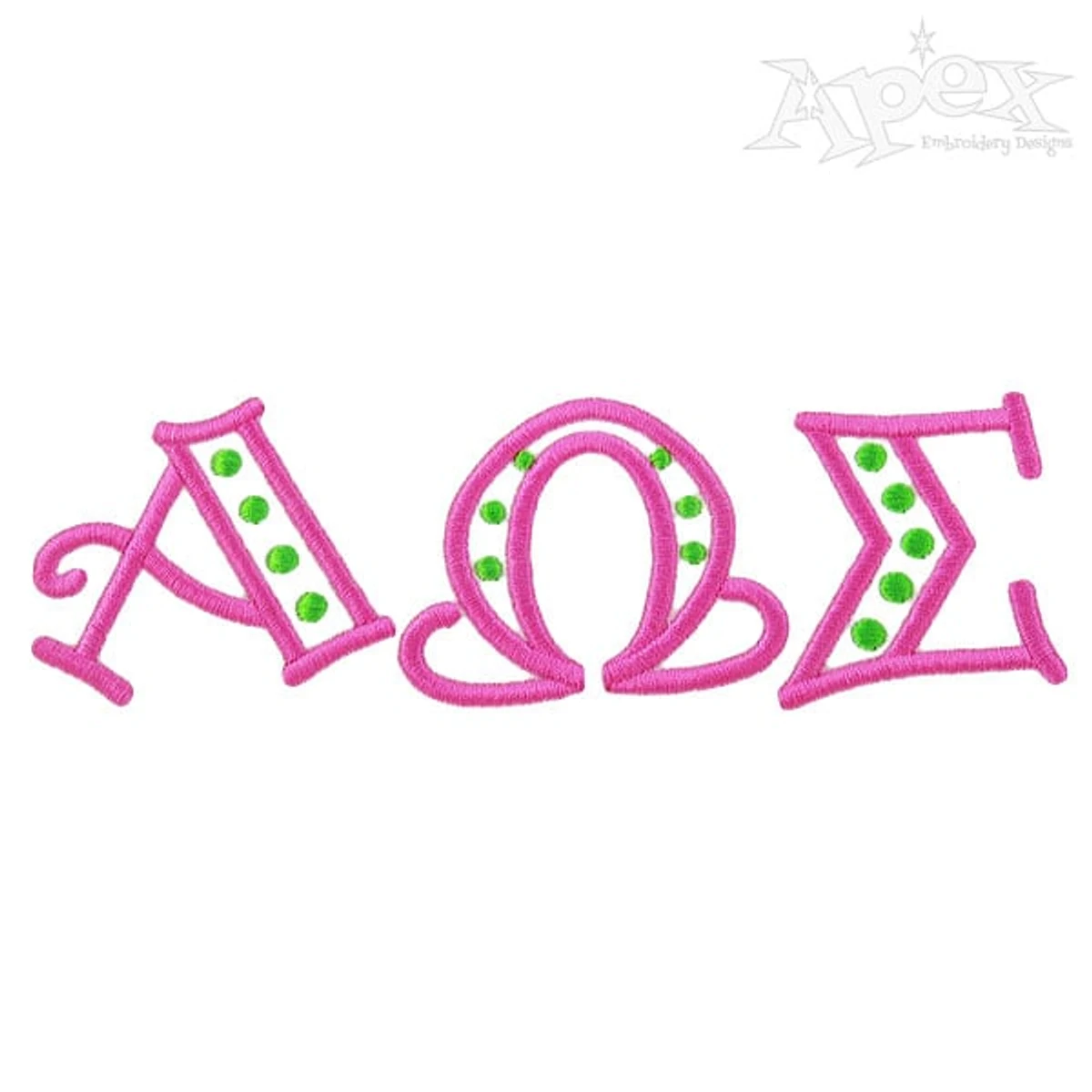
Greek Sorority Embroidery Font - Polka Dot & Open Faced Curlz
Few traditions carry the vibrant warmth and lifelong nostalgia of Greek life, where sisterhood is celebrated through shared laughter, spirited milestones, and cherished keepsakes. In digitizing this whimsical Greek letter duo, we set out to capture that radiant Bid Day joy and playful camaraderie. By infusing the spirited swoops and lively coils of the beloved Curlz aesthetic into full Greek alphabet letterforms, we created two delightfully expressive variations: one kissed with joyful polka dot accents and another defined by a light, breezy open-faced track. Every curve is mapped to dance across the fabric with infectious charm, transforming everyday sorority gear into heirloom-quality personalized stitchcraft.
This curated sorority collection delivers two complete Greek-letter styles thoughtfully proportioned for campus apparel, accessories, and celebratory gifting:
Project Ideas for Greek Sorority Embroidery Font
Greek Sorority Embroidery Font Craft & Letterform Details
Translating the iconic curves of a decorative curled typeface into high-precision Greek embroidery demands meticulous technical mastery. Greek characters carry distinct angular transitions and intersecting strokes; to merge these with playful spirals, our digitizers individually sculpted each letterform to preserve authentic orthographic legibility while honoring the design's buoyant personality.
In the Polka Dot variation, each circular dot is reinforced with centered underlay anchoring, ensuring that the playful satellite dots retain their crisp spherical geometry without pulling or distorting on stretchy knits. In the Open Faced variation, dual satin contour columns run with mirrored pull compensation, maintaining pristine negative channels that allow the base textile to shine through cleanly. Smooth inclination angles throughout the curly terminals generate a luminous, light-catching sheen across every stitch, promising heirloom durability that stands up to every chapter memory.